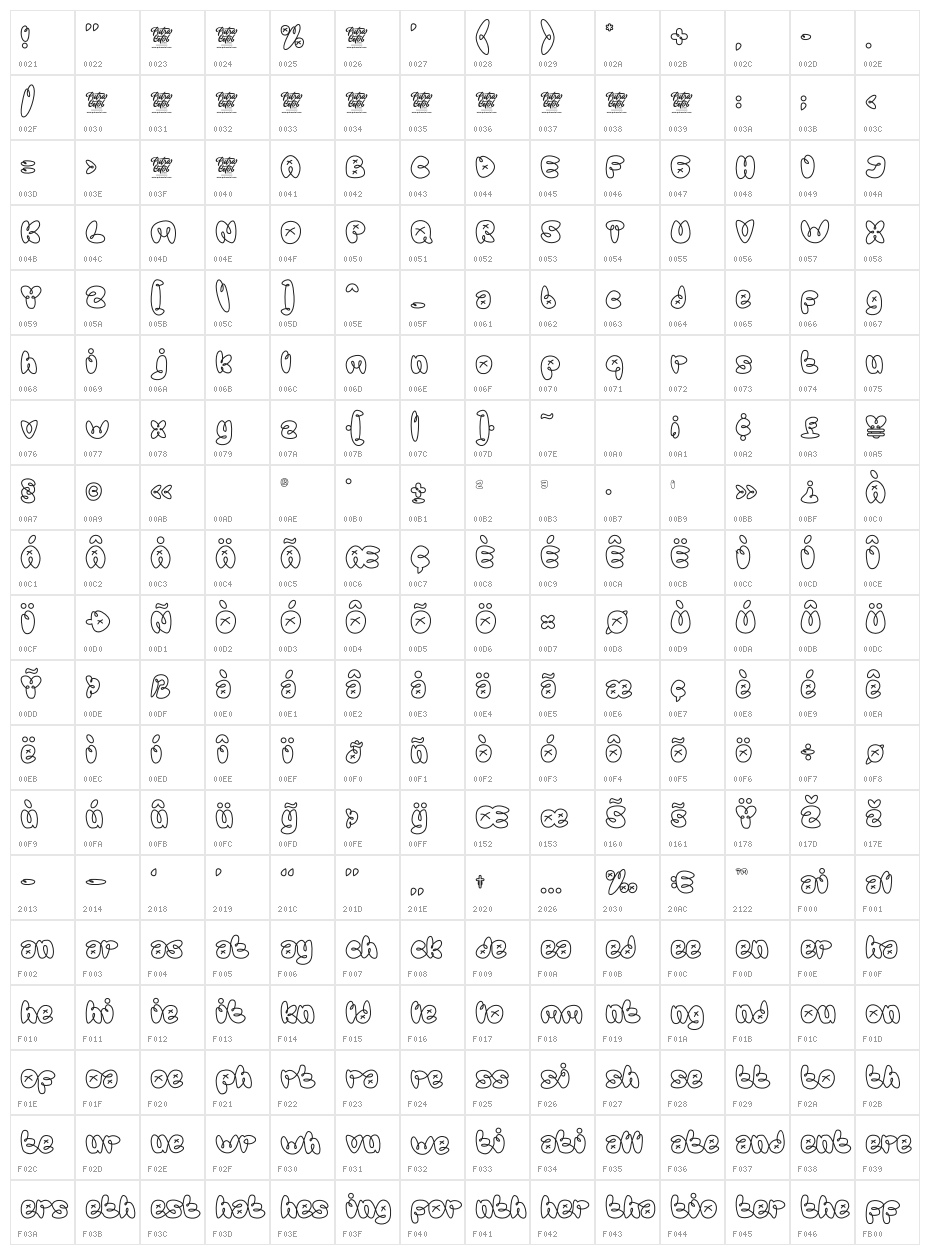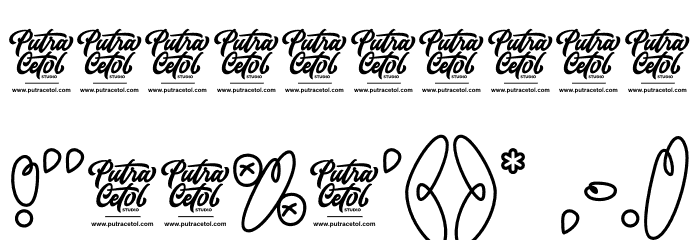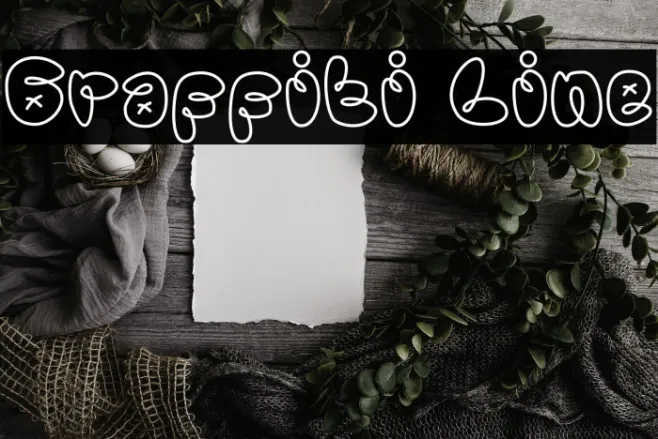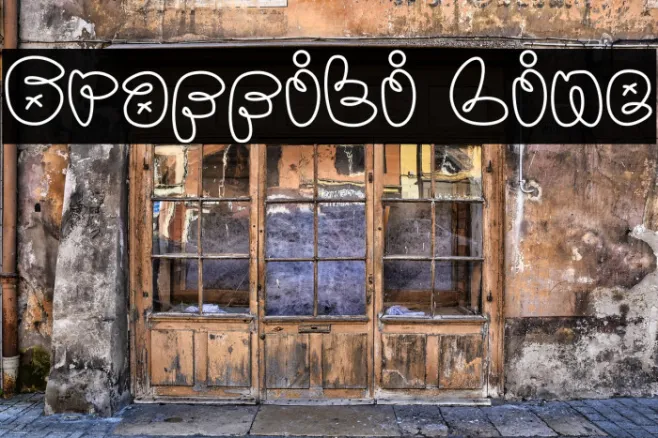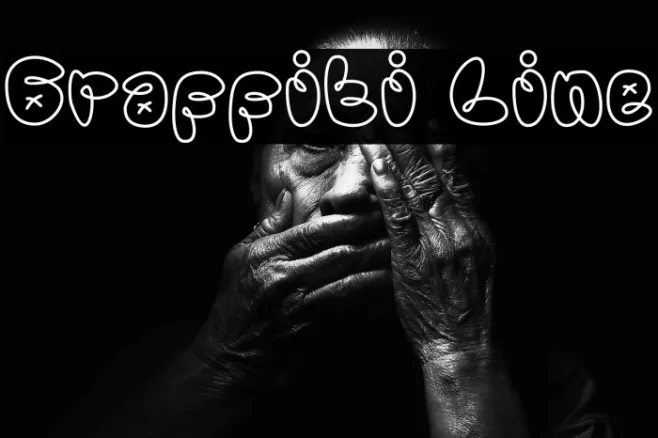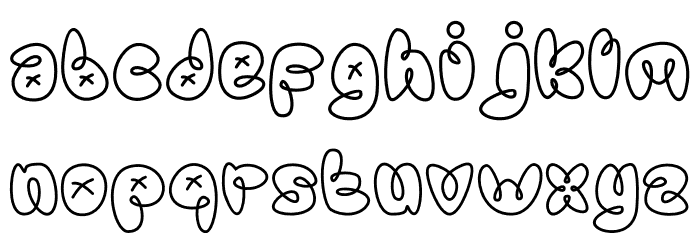
Graffiti Line Font
Graffiti Line Description
This font features a playful and bold graffiti-inspired style with a unique line art design. Each character is outlined with a consistent stroke width, creating a cohesive and visually striking appearance. The letters are rounded and interconnected, giving a sense of fluidity and movement. The font includes both uppercase and lowercase letters, as well as numbers and a selection of special characters. Its artistic flair makes it ideal for creative projects that require a distinctive and modern look. The consistent line thickness and rounded forms contribute to its friendly and approachable aesthetic.
| Use Case | Logos, Posters, Creative Branding |
| Proposed Projects | Perfect for street art projects, urban-themed designs, posters, and creative branding. |